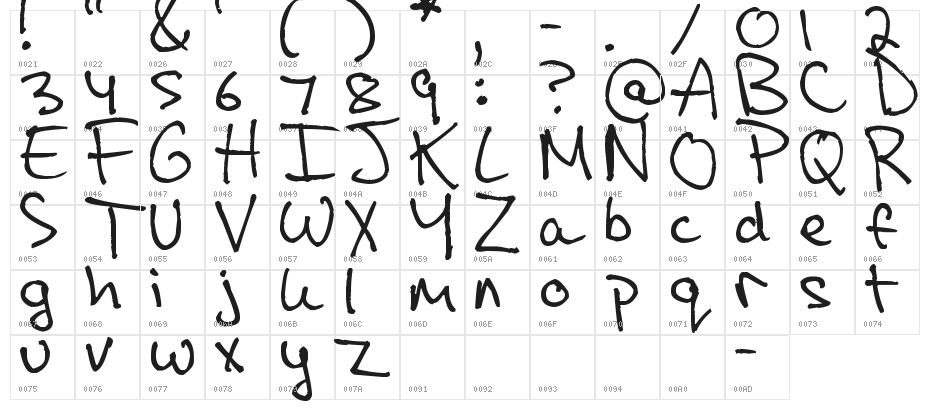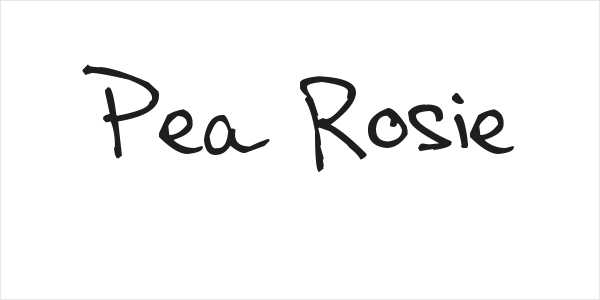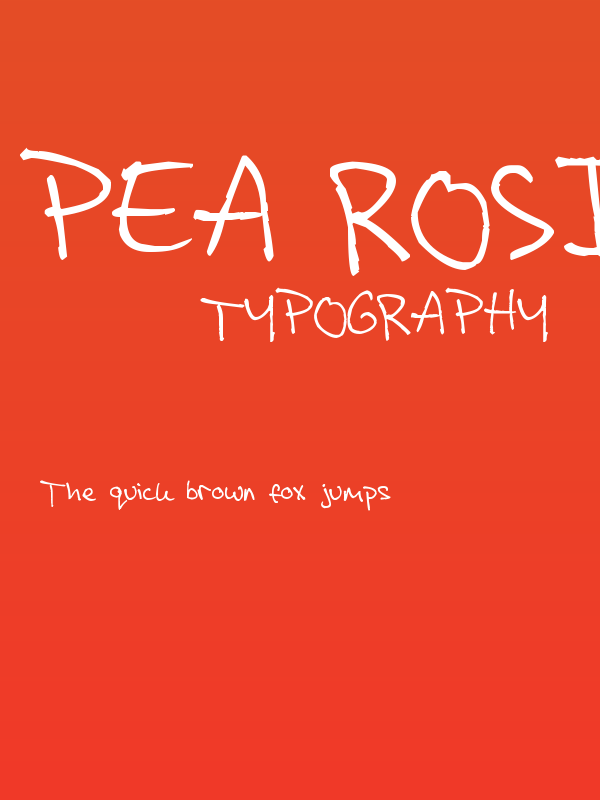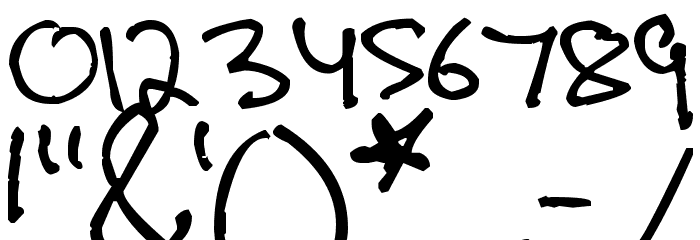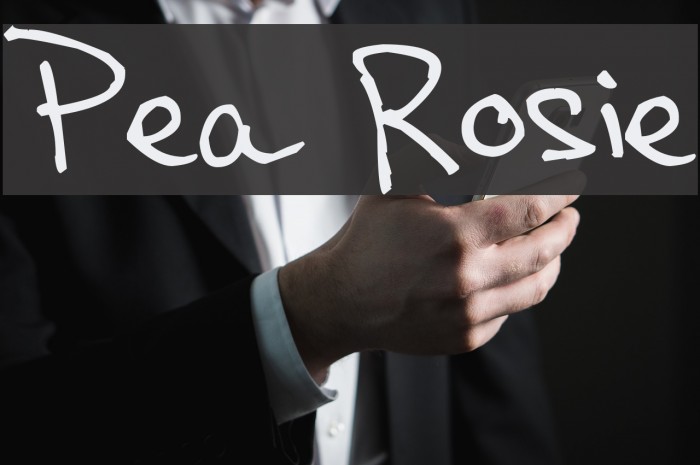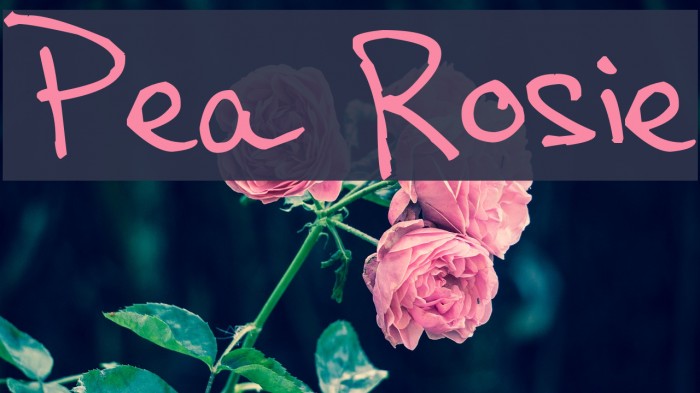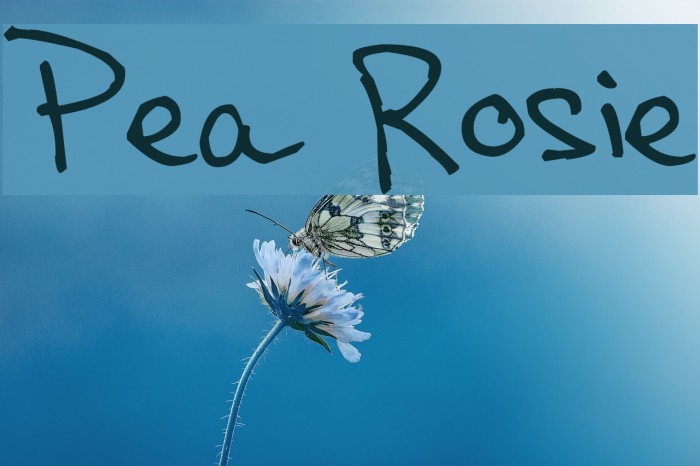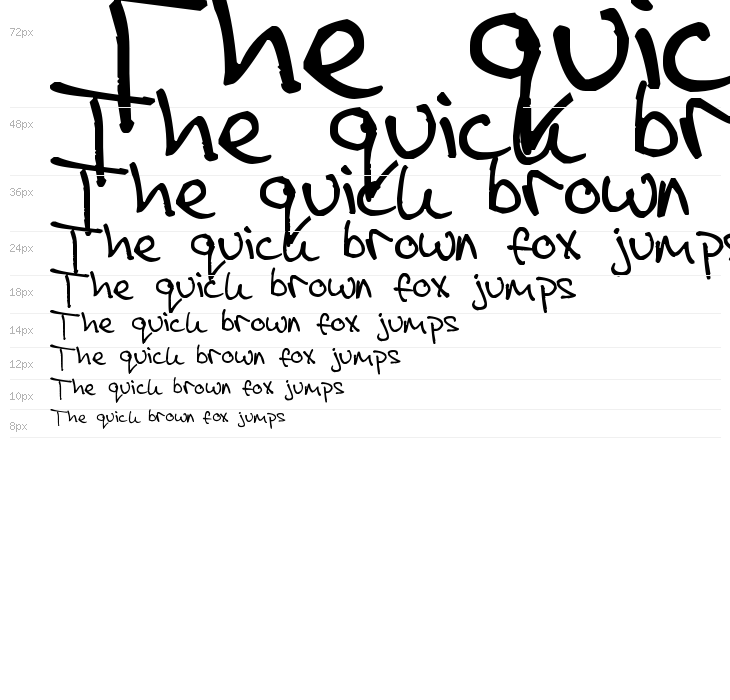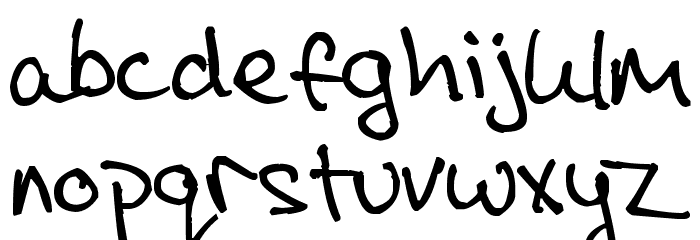
Pea Rosie Font
| Stile generale | Casual, Playful |
| Caso d'uso | Headlines, Informal texts, Creative projects |
| Progetti proposti | Ideal for greeting cards, personal blogs, casual invitations, and creative projects that require a friendly and approachable vibe. |